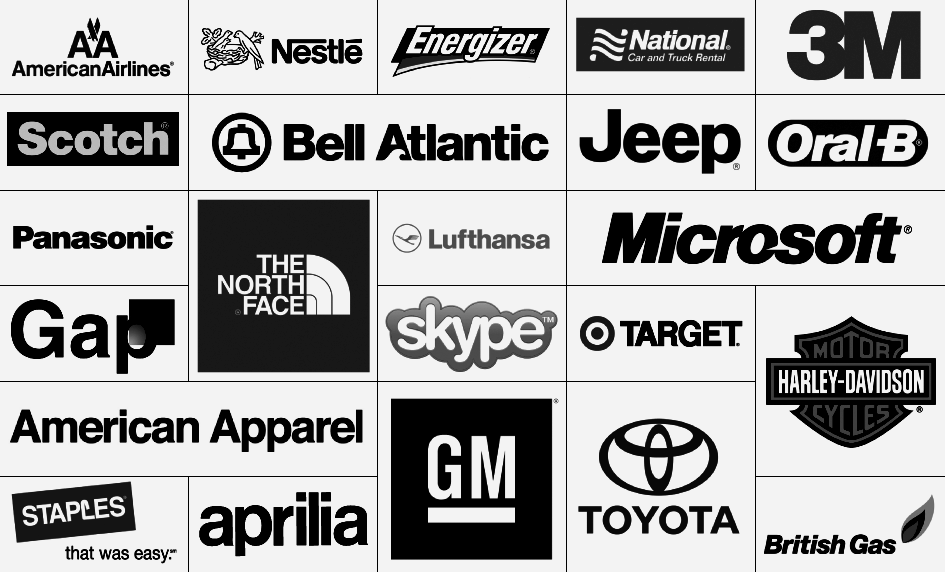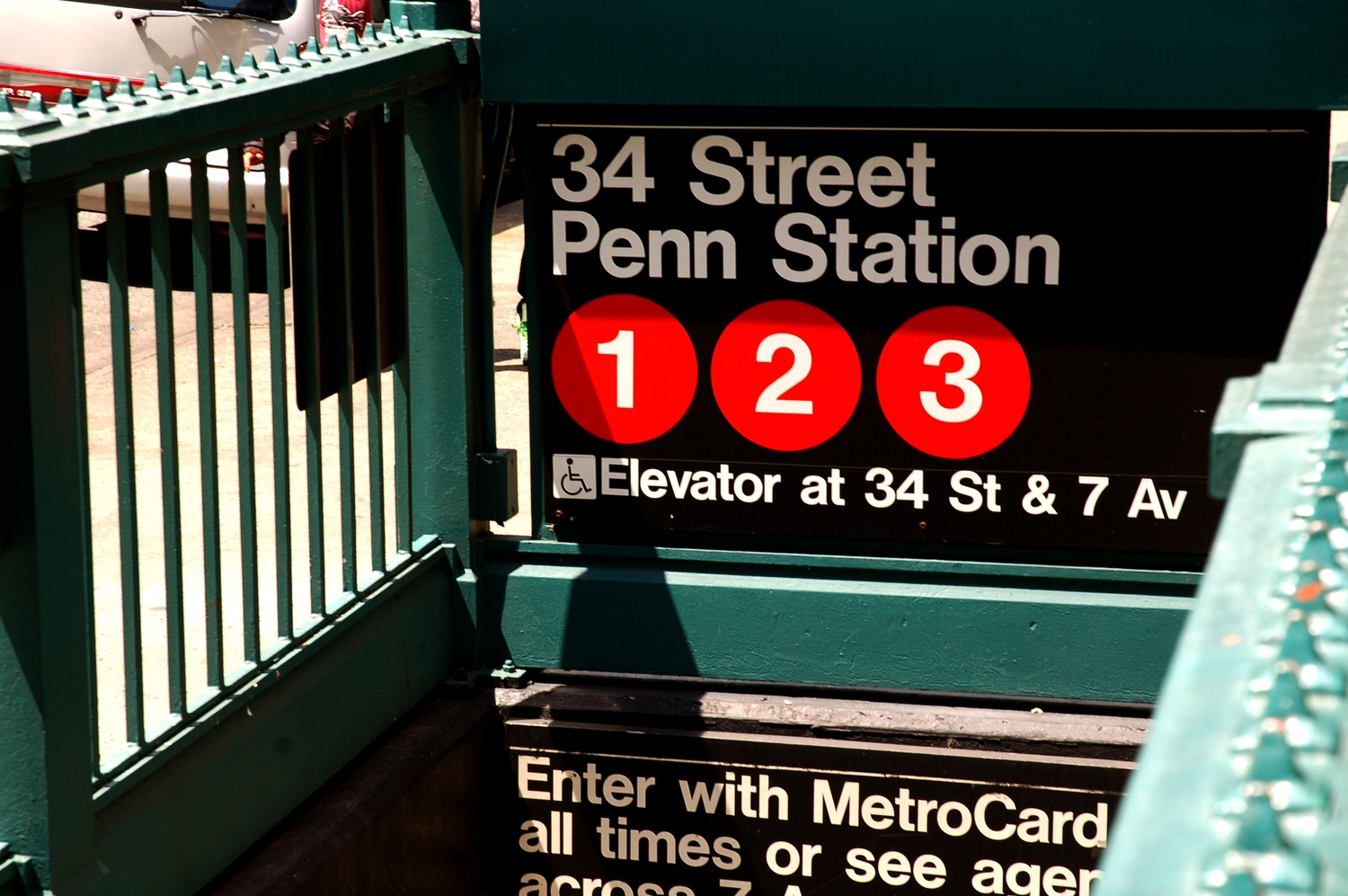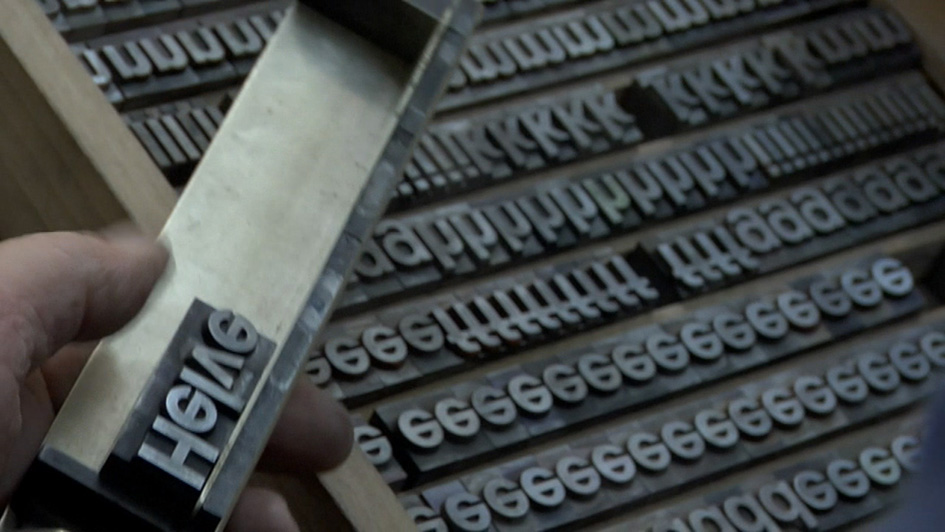
Le Monde's master of design on the legacy of Mister Helvetica
Having an icon to get inspired is a blessing, being able to express your gratitude is a miracle, having a great designer paying tribute to another great one is a match made in heaven and like this it's all begun to unravel. We asked Le Monde’s art director Aris Papatheodorou to give us his permission to translate from French his tribute to one of his icons, Mr. Mike Parker. L’actuel directeur artistique du journal Le Monde was kind enough to accept this invitation so, let’s be brief. This is the story of a man who changed typography for ever. The talented typographer, whose name is associated with the Helvetica font, one of the most used in the world today, Mike Parker died in Portland (Maine) on February 23 at the age of 85 years old. Born in London on May 1, 1929 Mike Russell Parker and his family moved to the United States in 1942.
Seven years later, his father died in the explosion of an aircraft in which a man had placed a bomb to kill his wife. After studying architecture and graphic design at Yale University he moved to Belgium to work at the Plantin Moretus Museum in Antwerp, which has the oldest printing presses. he was responsible for cataloguing documents related to typography such as boards of characters, sketches, breakages (characters pellets or wood), etc..
In 1959, Mike Parker finally joined the Mergenthaler Linotype Company, known for revolutionizing the typesetting technology, as Jackson Burke’s assistant, and within two years he was appointed Design Director. As Design Director Parker accomplished the expansion of the Linotype library from a collection of 150 American hot metal designs for text-setting to an inclusive library of nearly 1,100 international digital designs for full page setting.
Helvetica Simplified and Enriched
Being originally from the UK and having worked in Belgium, it comes only naturally that Parker looked for inspiration in Europe. He particularly liked the new Swiss style of letter design, in which, Parker said, “you draw the counters and let the black fall where it will.” Parker soon discovered Neue Haas Grotesk, a sans-serif typeface created in 1957 by the Swiss designers Max Miedinger and Eduard Hoffman of the Haas Type Foundry. There was only one little problem: Neue Haas Grotesk wasn’t designed to be used in a Mergenthaler Linotype hot metal typesetting machine. Therefore, Parker and his team began reworking Haas’s original drawings to adapt them to Linotype’s machines. The design had, indeed, to be significantly altered for the limitations of the Linotype machine. Soon after that, he also enriched the family with Hebrew and Greek scripts.
Indra Kupferschmid mentions:
“The Linotype machine casts one line of type at a time from a row of individual molds, or “matrices”. One matrix can be used to cast two forms of the same character: usually either regular and italic, or regular and bold. As such, both forms have to be exactly the same width. This “duplexing” inevitably leads to compromises: italics often appear to be too wide, bold styles too narrow.
Helvetica was created for the Linotype by refitting all styles of Neue Haas Grotesk, making the regular weight looser and the medium weight more dense. The italic (technically an oblique) was completely redrawn by Stempel, and the medium weight was made slightly bolder. Also, the size of each glyph had to be slightly reduced to accommodate uppercase accents.”
The modified design eventually became known as Helvetica, as the name was considered more commercial than Neue Haas Grotesk for the international market, and especially for the U.S.
In the years to come Helvetica becomes a standard typographic symbol of modernity, one to be found everywhere, from magazines to books, and from signs in the New York subway, to the base of countless brand logos and companies (Microsoft, Toyota, Jeep, American Apparel, etc..) or pre-installed on almost every computers… even on the Internet as default. It’s true that Helvetica was so ubiquitous, that someone can argue it barely says anything any more. Not to mention that many of the qualities Helvetica was once associated with aren't quite as appealing anymore: corporate dominance, machine-like indifference, bland conformity, etc. It’s since the mid-2000s that Helvetica has become again a cult subject among many web designers.
Brochure Helvetica/Neue Haas Grotesk, 1963. Designs by Hans Neuburg and Nelly Rudin
The ultimate accolade: MoMa, the Museum of Modern Art in New York City organizes from April 2007 to March 2008 a major exhibition dedicated to the “50 Years of Helvetica”. The film by the independent filmmaker Gary Hustwit that was projected on this occasion was simply entitled Helvetica. It’s undoubtedly the first that a font acquires the status of a cultural symbol.
The Intuition of Change
His contribution to Linotype doesn’t end with the invention of the most celebrated font. After Helvetica, Parker has created more than a thousand fonts on behalf of the Linotype (legend has it that the exact number is 1100, who knows...) for over two decades. He would also occasionally use the support of some other internationally known designers such as Matthew Carter, Adrian Frutiger or Herman Zapf. But more importantly, he introduced an organization of shared typeface development between the five separate companies in the Linotype Group worldwide.
But Parker is not only an avid typographer. He is also somehow a visionary who has the intuition of change in the field of graphic arts. In the late 1970s, with the advent of phototypesetting, he understood that the time for heavy systems such as Linotype is over, and that typography must be reconceived and remarketed. In 1981 he co-founded with Matthew Carter, Bitstream, the first font company based purely on digital technology. He is also responsible for creating the site MyFonts (in 2000), the first online marketplace for digital fonts.
Apart from a catalogue of “classic” typography, available for the first time in digital format (often presented under different names for licensing reasons), Bitstream also offered original creations. Among them the Swiss 721 BT, which is actually a clone of Helvetica enriched with a condensed and a rounded version.